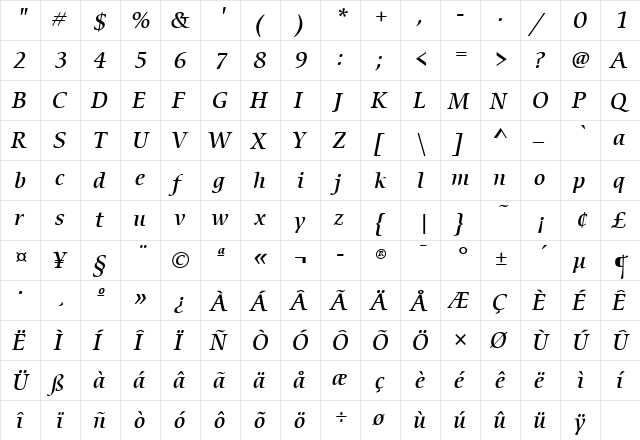
CerigoMdITC Italic
Design Context for CerigoMdITC Typeface
CerigoMdITC offers clean, dependable letterforms without strong stylistic allegiance, making it a practical choice for designers who need flexibility. The slanted form adds forward momentum and visual energy.
Pro Tip: Use CerigoMdITC for emphasis, pull quotes, and subheadings where its slanted energy can add rhythm to the layout.